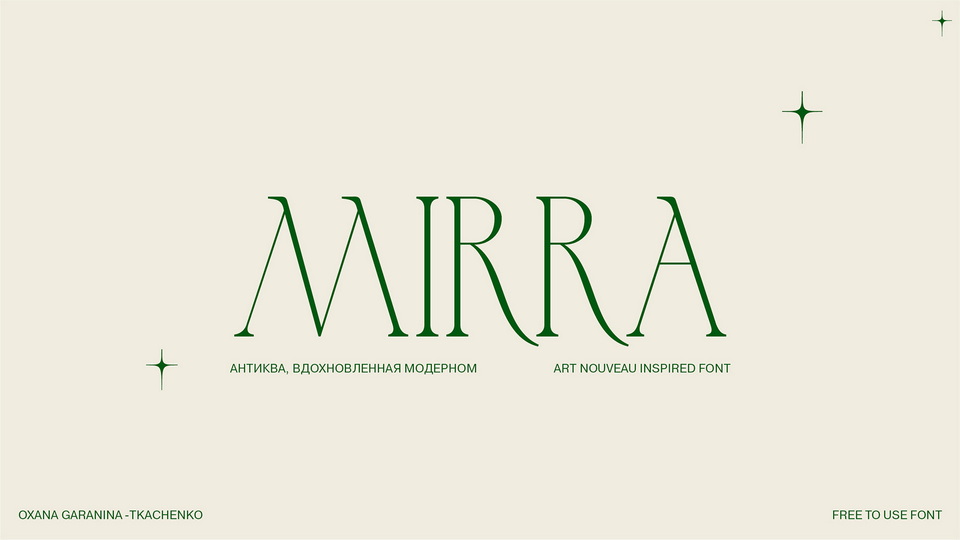
Download Mirra font, a serif typeface inspired by Art Nouveau. Mirra is an attempt to rethink the work of one of the most famous type designers of the early 20th century, Georges Auriol, creator of several exquisite typographic types and styles in line with Art Nouveau.